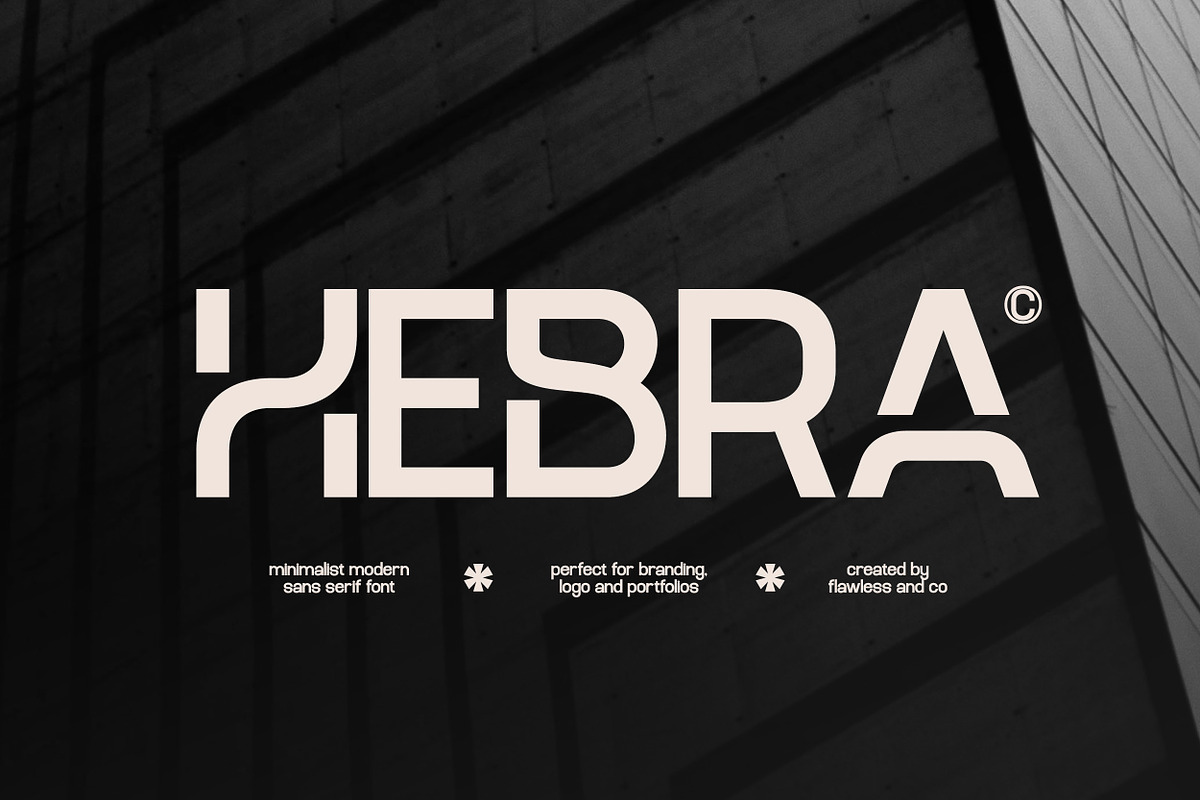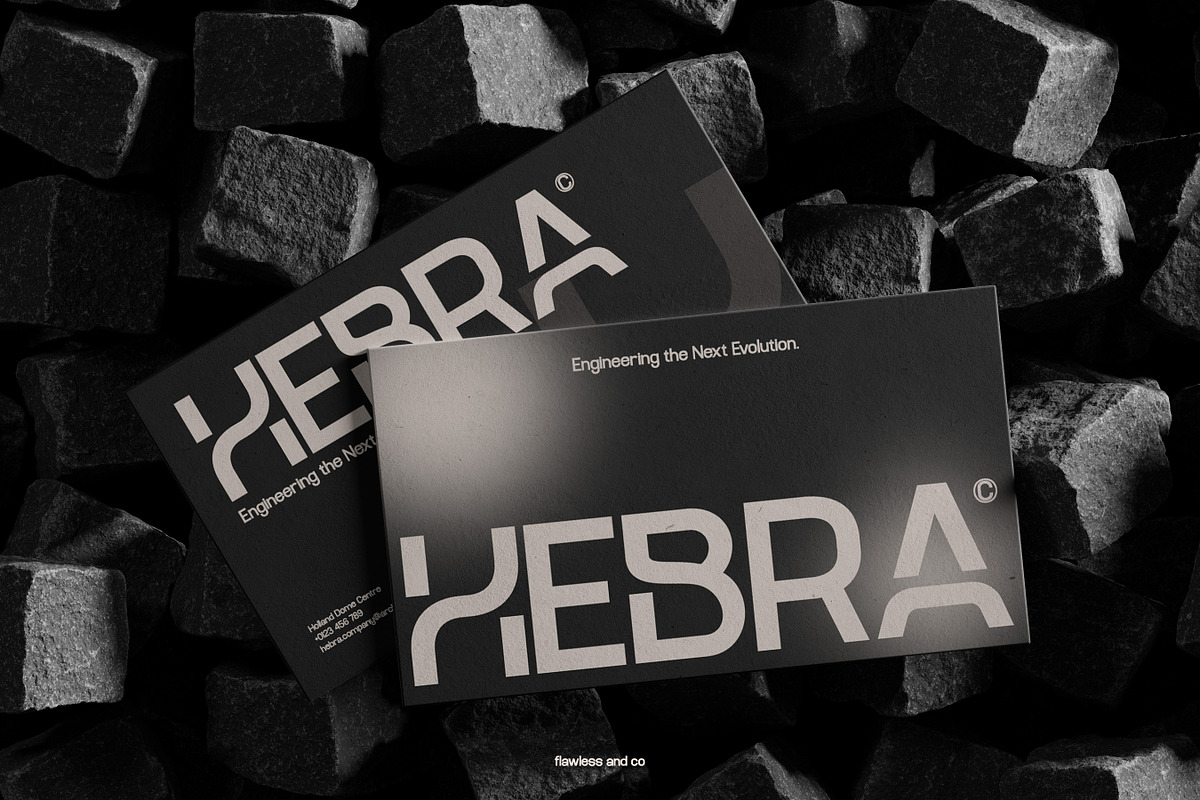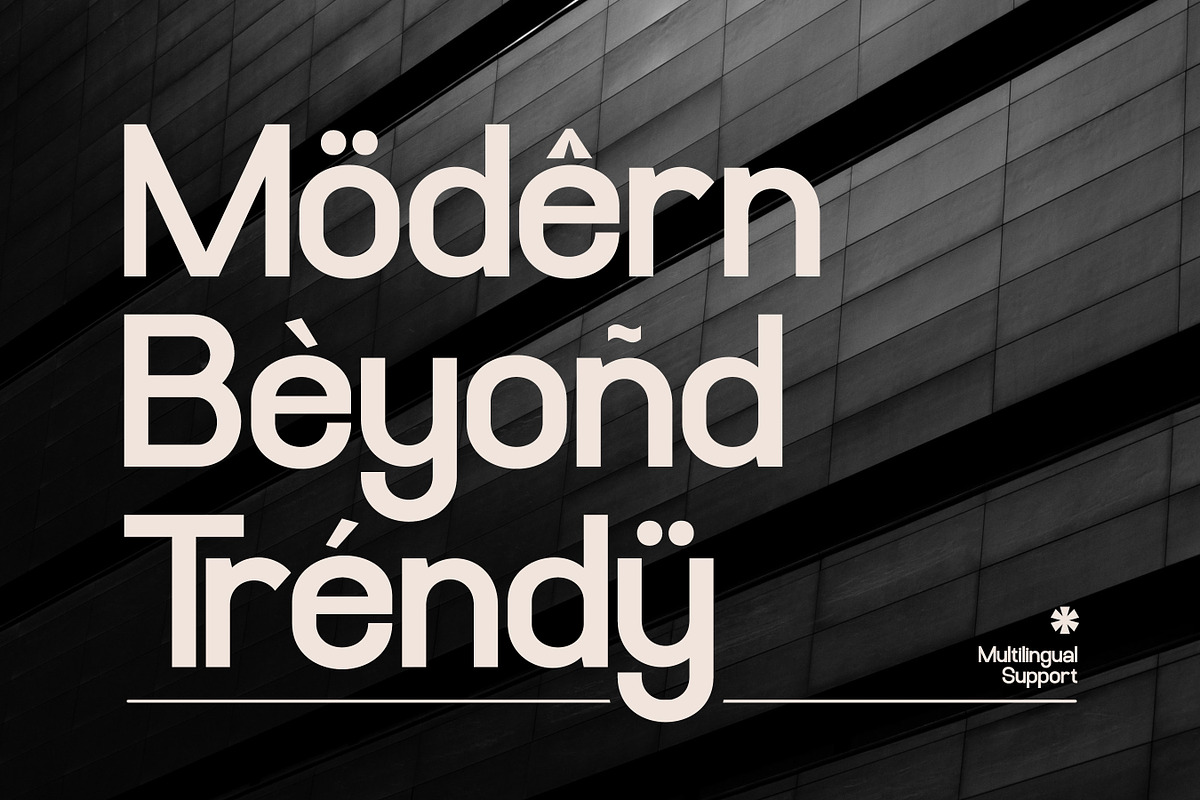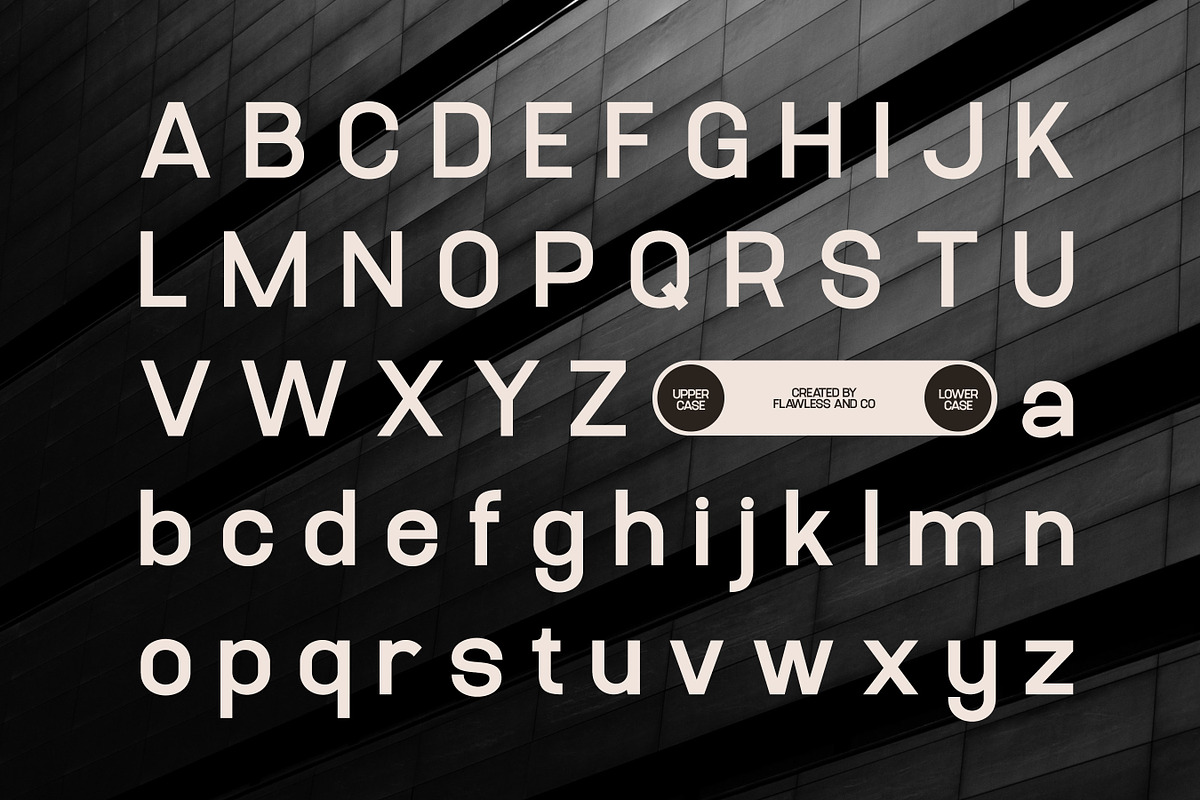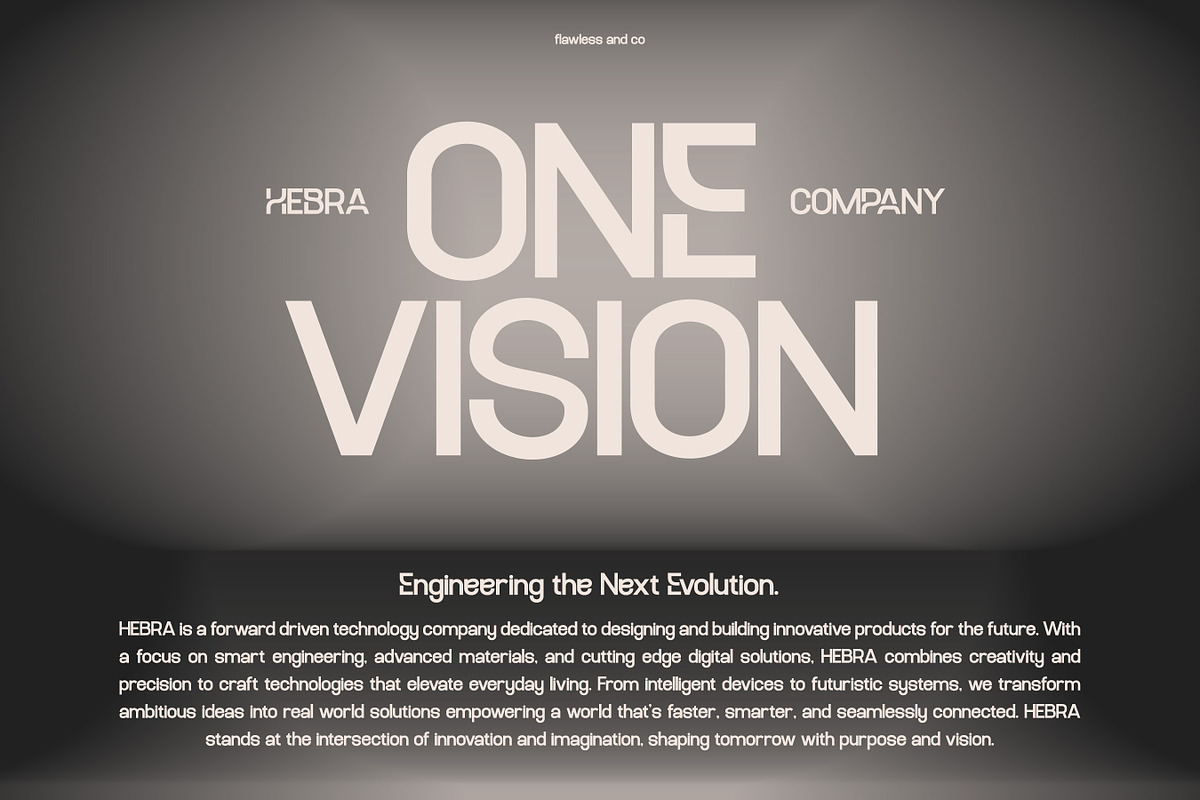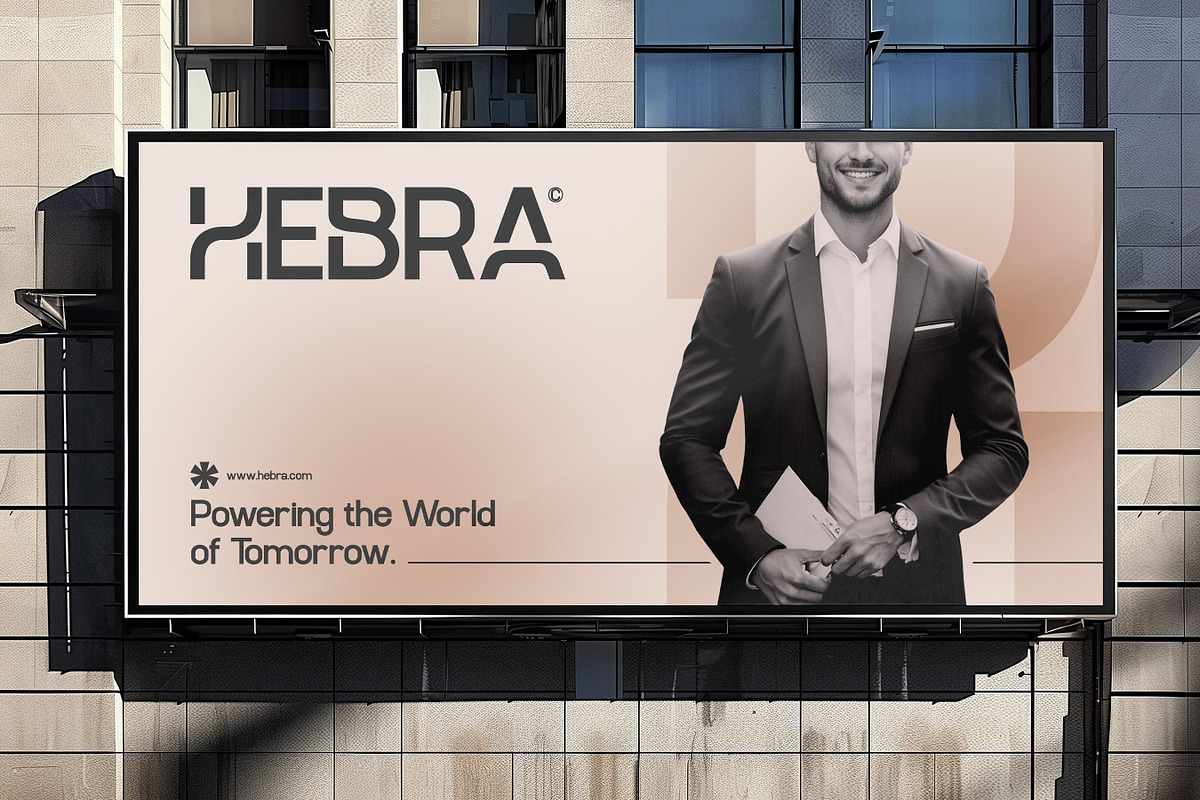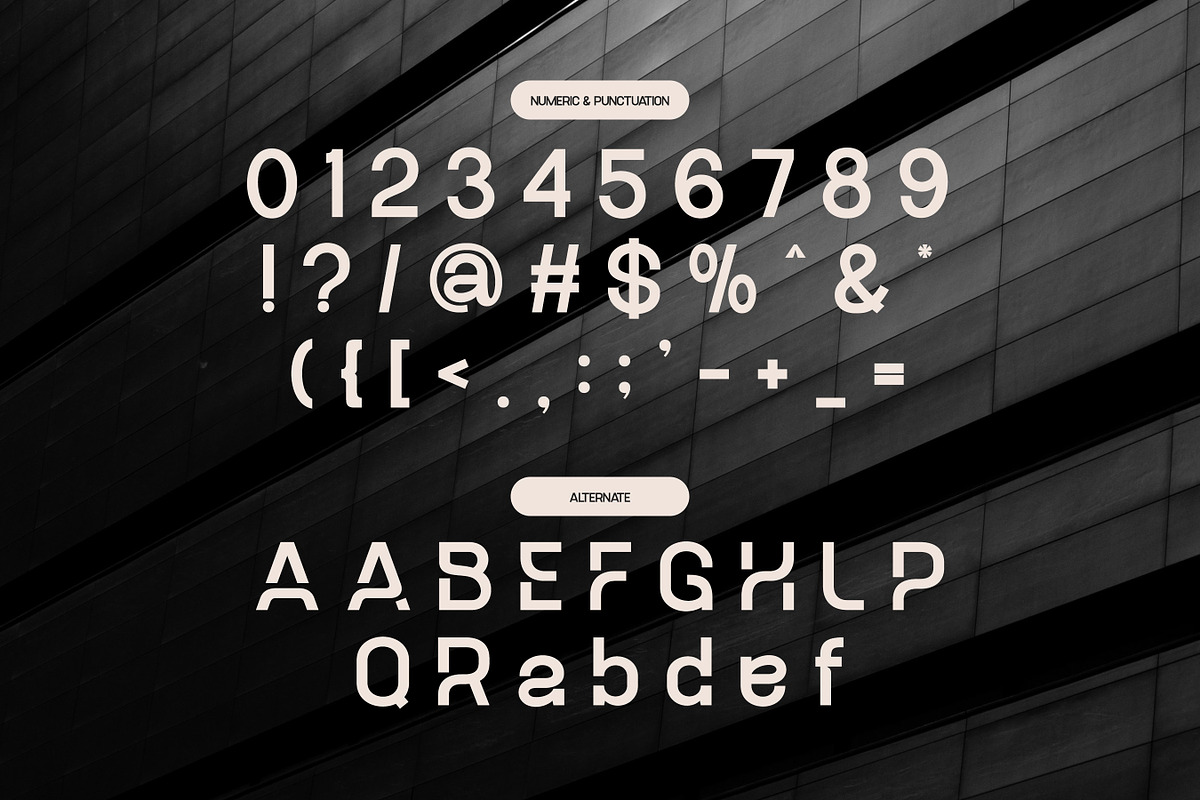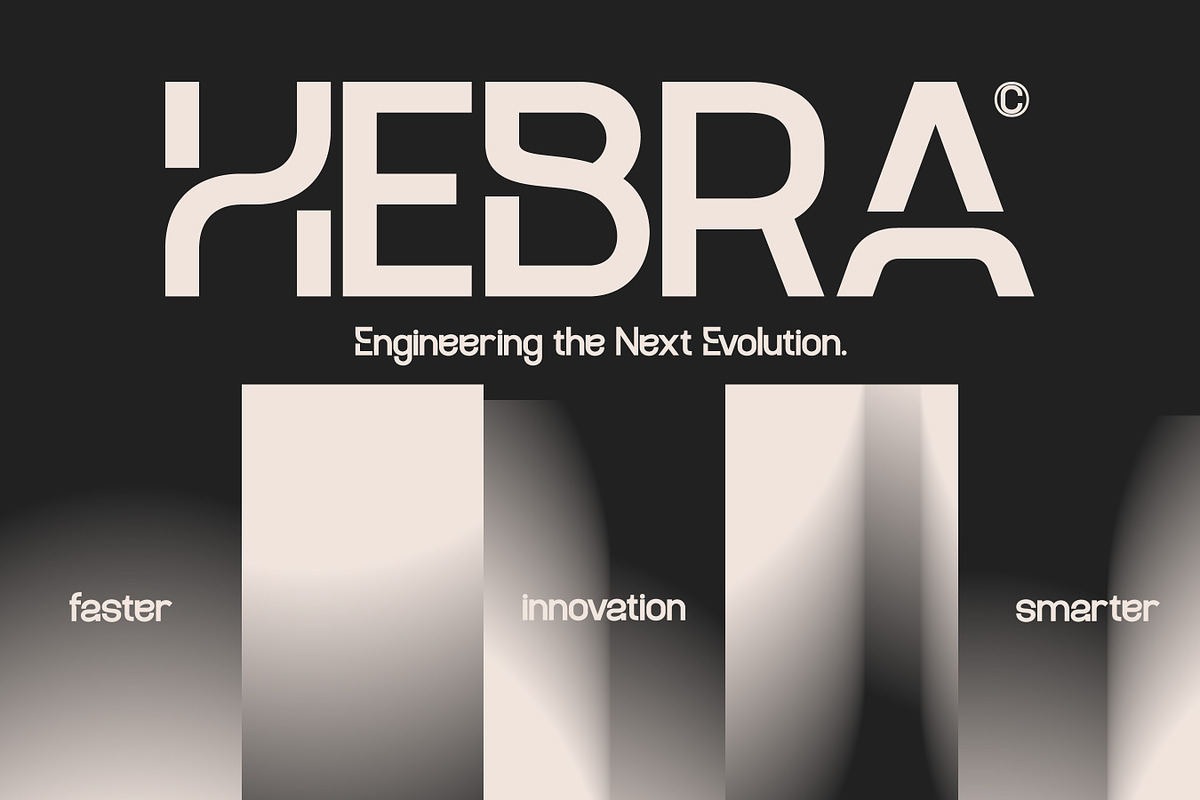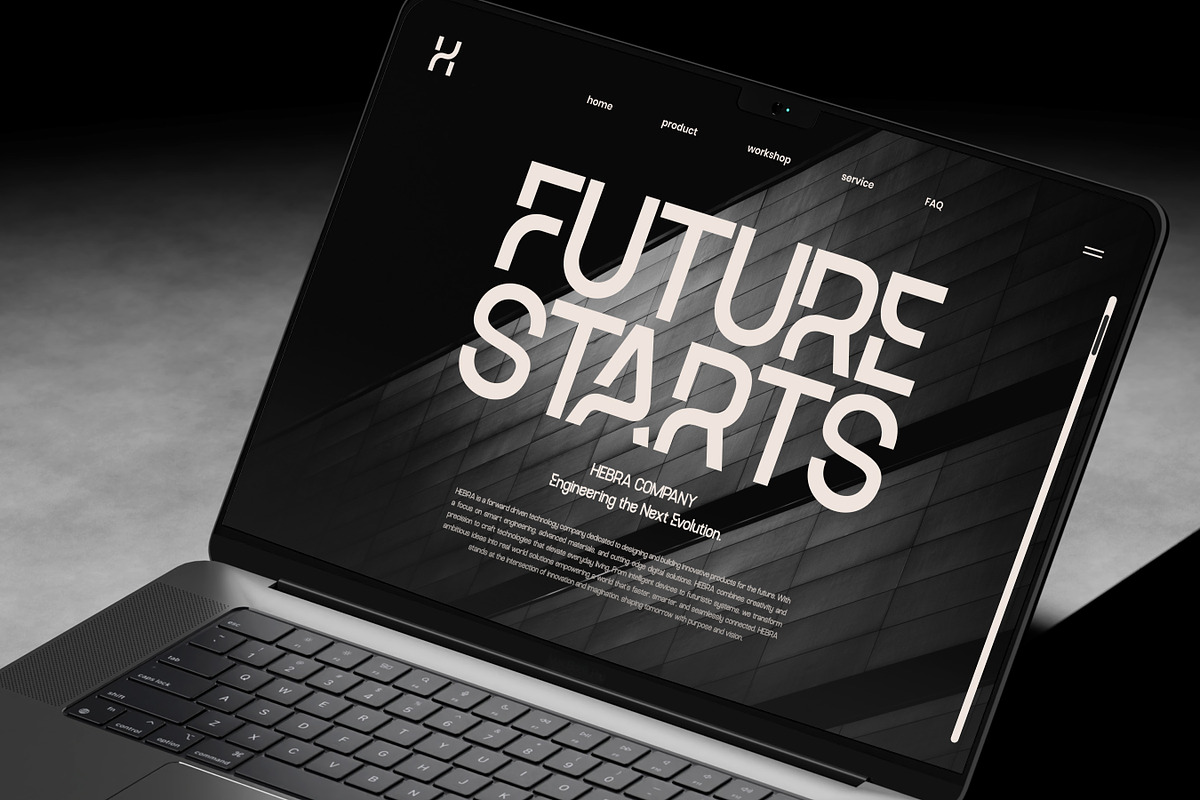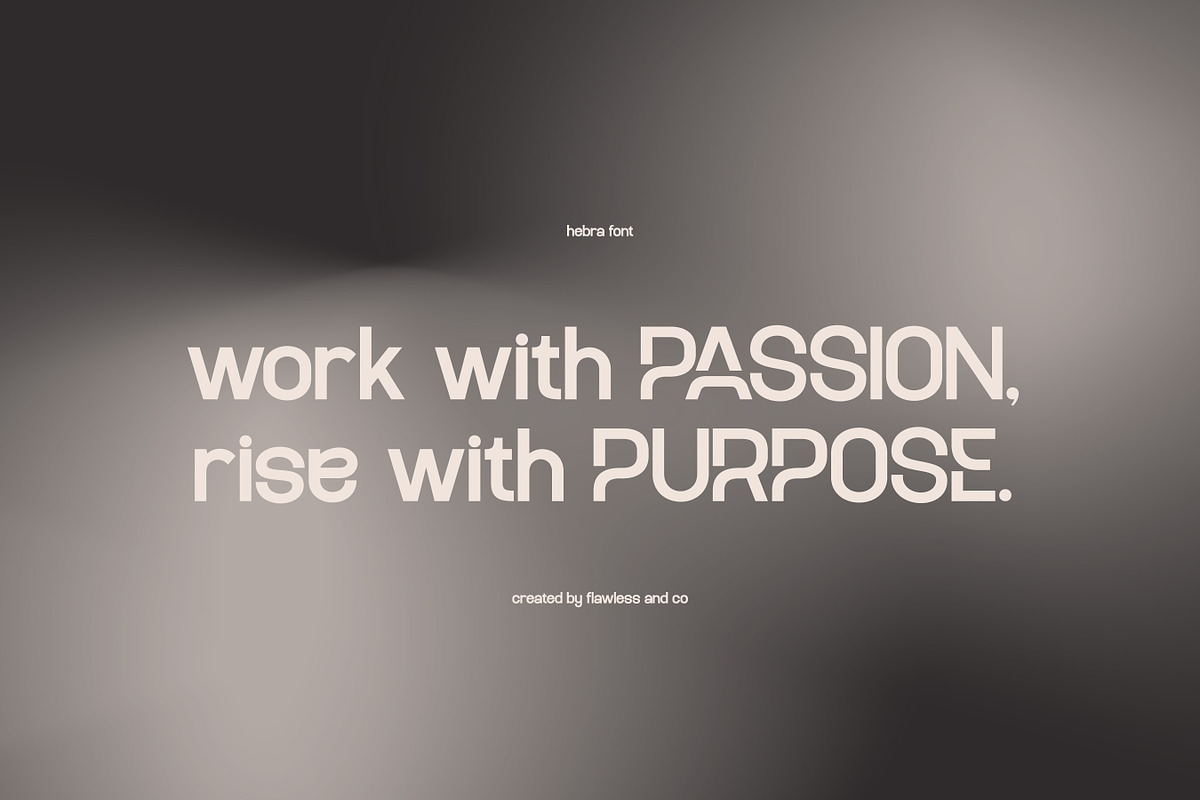
Hebra - Modern Sans Serif Font
Hebra - Minimalist Modern Sans Serif Font
Hebra is a minimalist modern sans serif font designed for creators who appreciate clarity, precision, and forward-thinking aesthetics. With its clean geometry, subtle futurism, and perfectly balanced letterforms, Hebra delivers a crisp visual identity that feels both contemporary and timeless. Crafted to elevate branding, packaging, portfolios, editorial layouts, and digital interfaces, Hebra brings a refined modern tone that instantly enhances any visual project. Whether you're building a sleek corporate identity or a stylish creative presentation, Hebra ensures your typography looks fresh, confident, and unmistakably modern.
Who Should Use Hebra?
Hebra is perfect for designers, creators, and brands who prioritize a clean, modern, and minimalist aesthetic. This font is an excellent choice for professionals seeking typography that feels sleek, futuristic, and highly versatile. Whether you work in branding, digital design, editorial layouts, or visual identity development, Hebra provides the clarity and elegance needed to elevate your work. It’s especially ideal for brands that want to appear modern, premium, and forward-thinking.
A Must-Have Font for “Brand and Logo” Creators and Designers
Hebra is a must-have choice for creators and designers who want to craft strong, memorable brand identities. With its sleek modern lines and minimalist structure, Hebra delivers the perfect balance of professionalism and style—ensuring every logo, monogram, or branding element looks polished, premium, and instantly recognizable. It’s the ideal companion for anyone aiming to build brands that feel contemporary, clean, and future-ready.
Why Choose Hebra for “Brand and Logo” Projects?
Choose Hebra for your branding projects because it brings a modern, confident, and highly versatile aesthetic to any design. Its clean sans-serif style creates strong visual clarity, making logos and wordmarks stand out with a sharp and memorable presence. Hebra is crafted to communicate professionalism and contemporary elegance, ensuring your brand identity feels consistent across digital and print media. Whether you're building a sleek corporate logo or a stylish lifestyle brand, Hebra offers the perfect foundation for a polished and timeless look.
Suitable For
- Branding & Logo Design
- Product Packaging
- Editorial & Magazine Layouts
- Website Headers & UI Design
- Social Media Visuals
- Modern Posters & Advertisements
- Portfolio Presentations
- Stationery & Business Cards